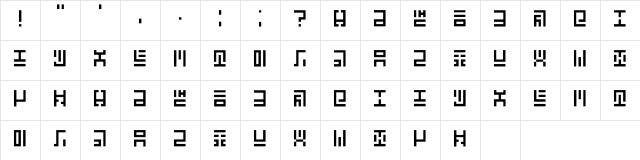
Geldian Regular
Design Context for Geldian
Geldian is a composed and adaptable typeface that performs quietly and consistently across a wide range of design contexts.